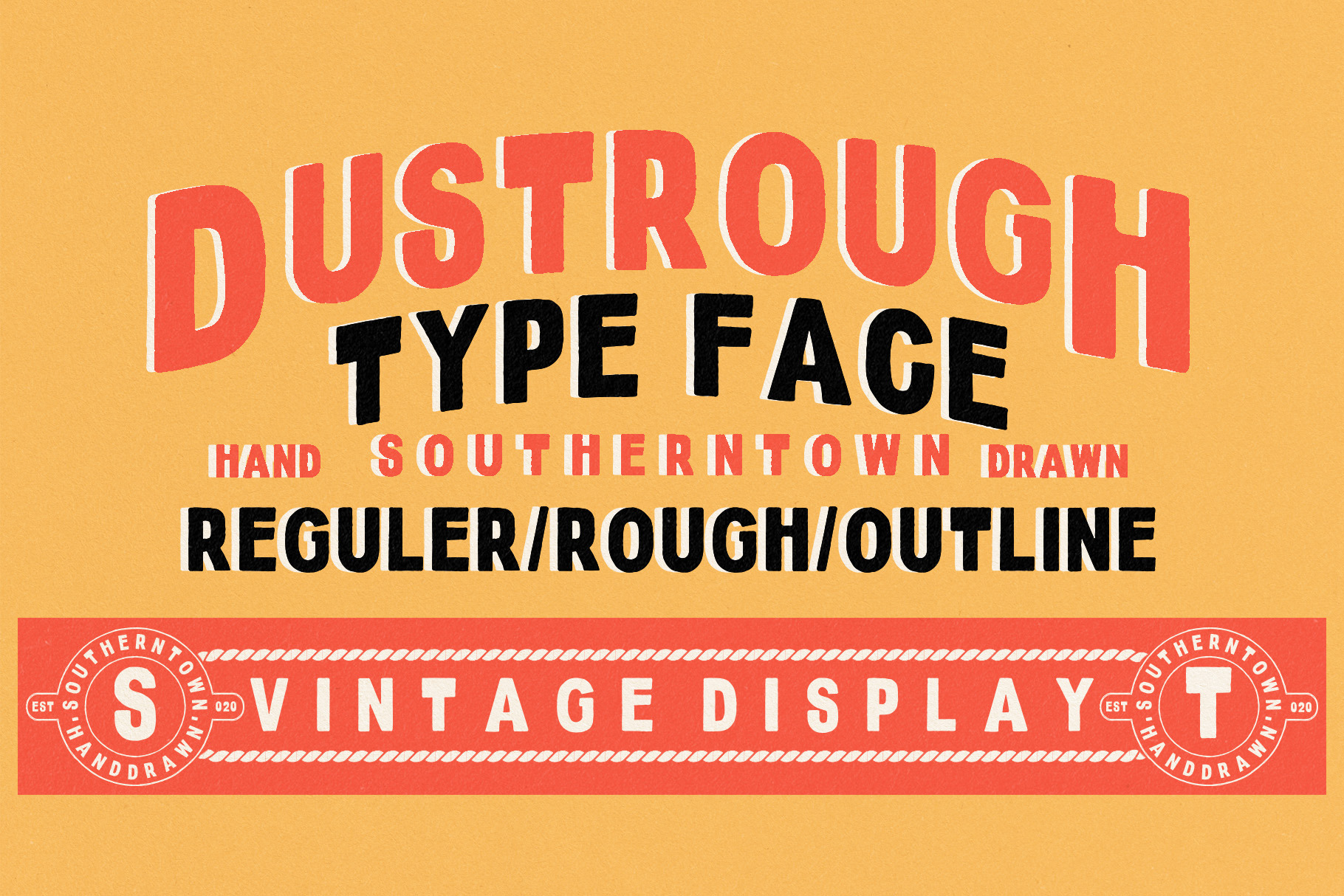
Dustrough - Typeface
Dustrough – Vintage Hand-Drawn Typeface
Dustrough is a vintage western-style display typeface inspired by saloon signs, rodeo posters, and classic American Western aesthetics. Designed with an authentic hand-drawn touch, this font delivers a strong, bold, and personality-filled character.
Available in 3 styles:
Regular – a clean yet distinctive look
Rough – a worn, textured effect for an authentic retro feel
Outline – an outline style suitable for layered combinations